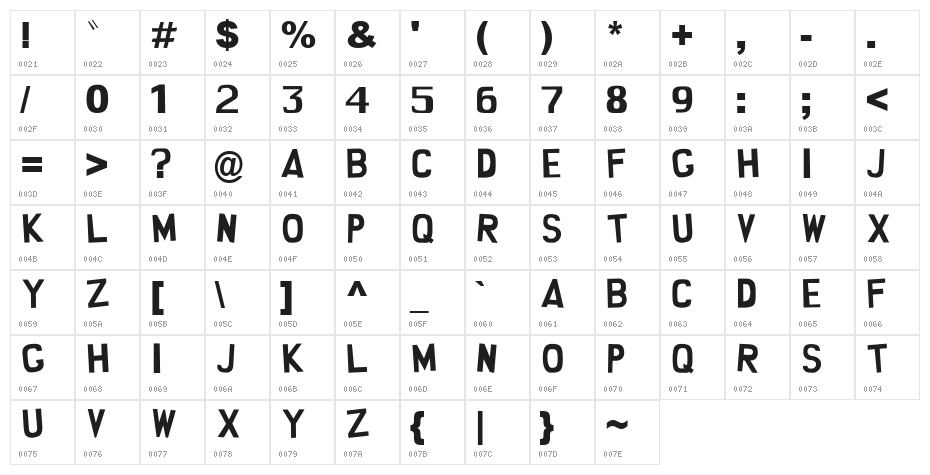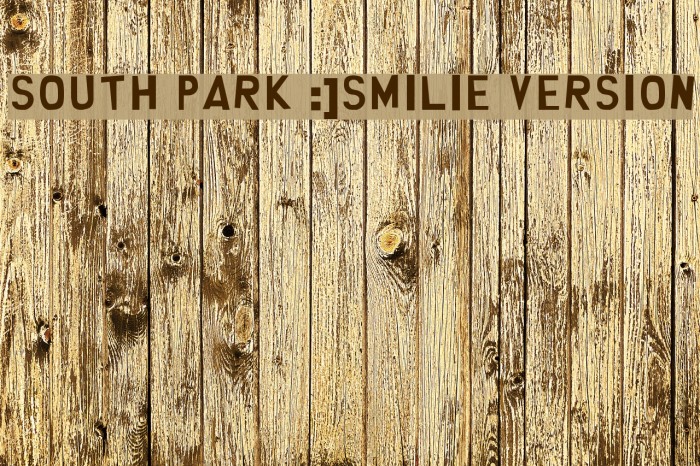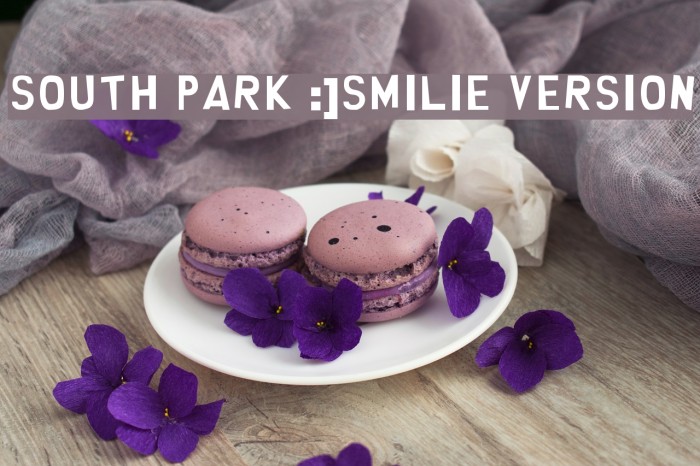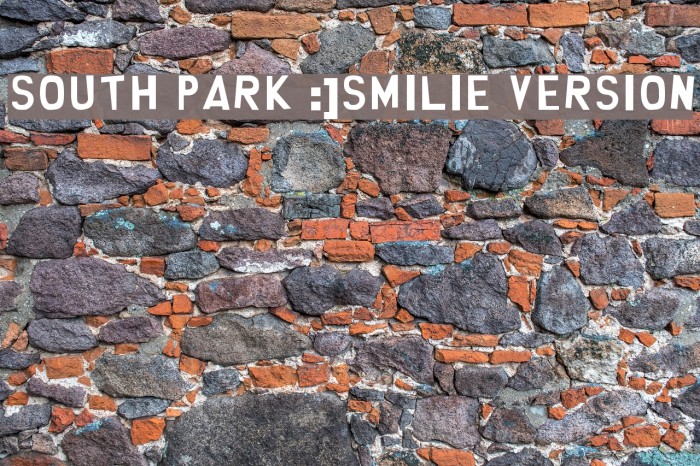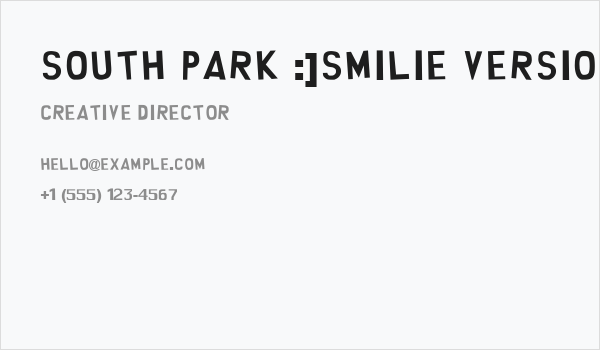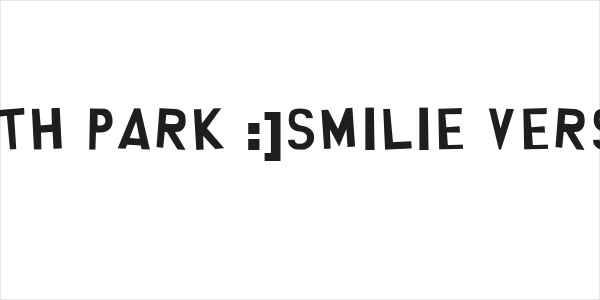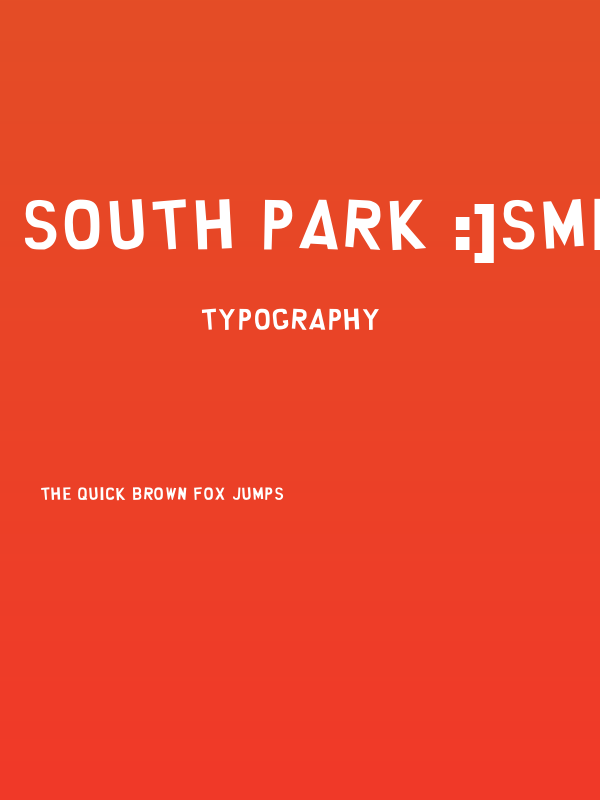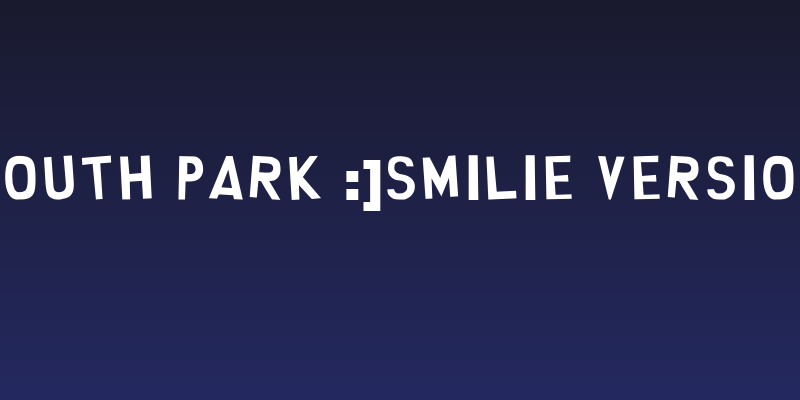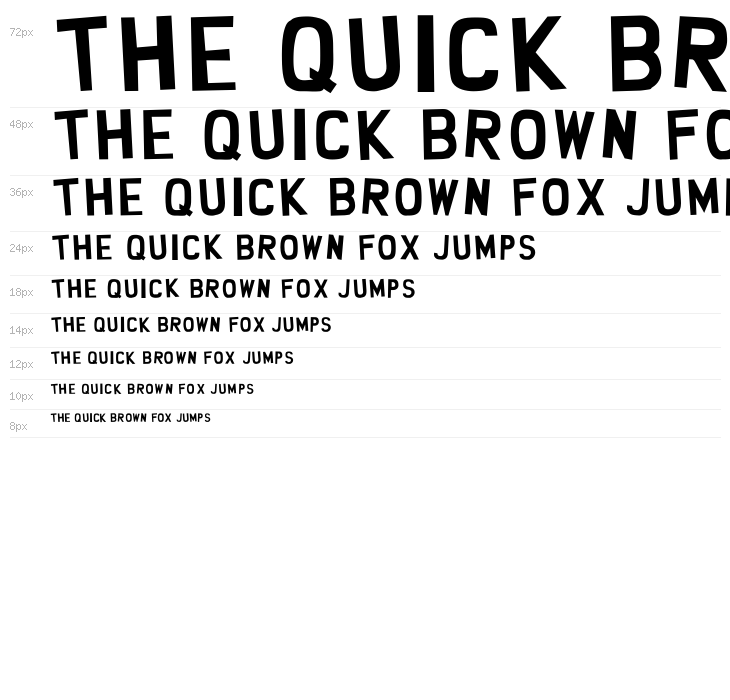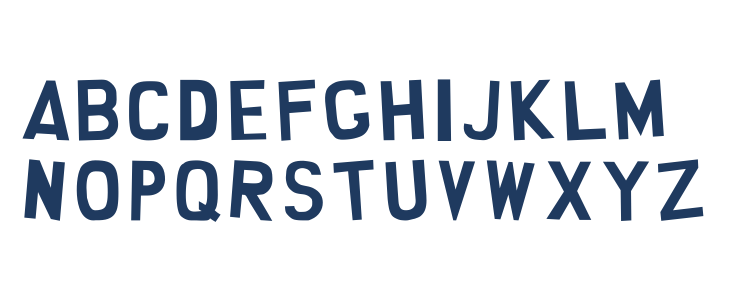
South Park :]Smilie version Font
South Park :]Smilie version Description
This font features bold, geometric letterforms with a slightly condensed appearance. The characters are uniform in height and width, creating a cohesive and structured look. The uppercase letters have a strong presence, while the lowercase letters maintain a consistent style that complements the uppercase. The numbers are clear and legible, with a modern touch. Special characters are included, adding versatility to the font. The overall design is clean and impactful, making it suitable for various applications.